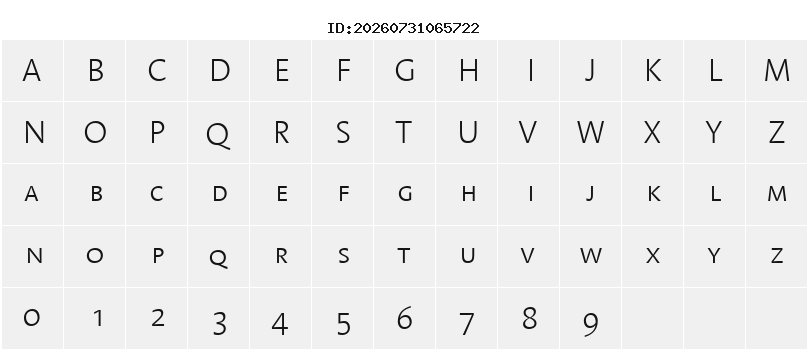
• Font Name: LTAromaSC Light
• Full Font Name: Linotype Aroma Light SC
• Designer: Tim Ahrens
About LTAromaSC Light.ttf
LTAromaSC Light.ttf is a modern, elegant sans-serif font designed for ultimate readability and visual harmony. Perfect for branding, headlines, web design, and print materials.